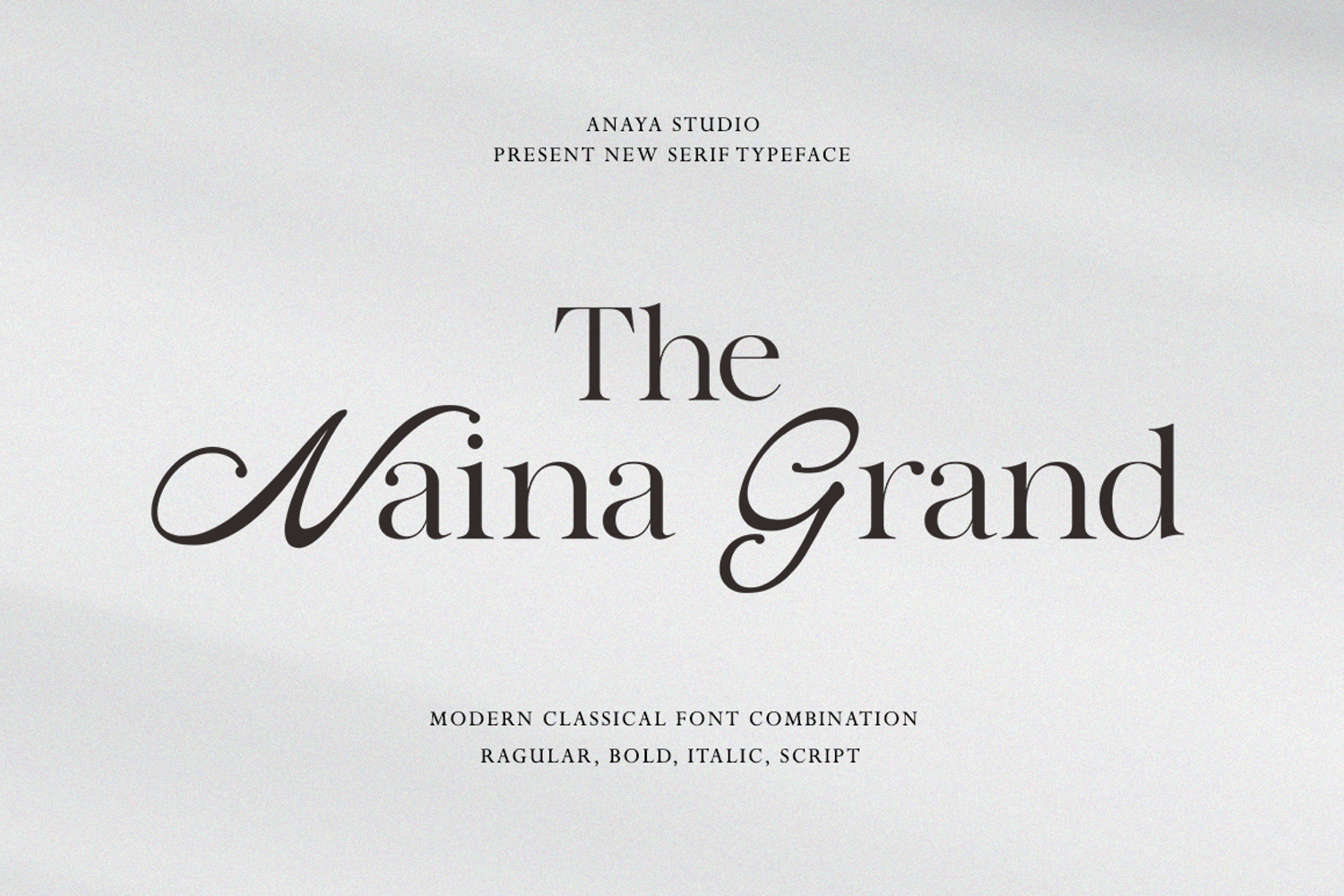
The Naina Serif style
the Naina is a modern monospace sans serif typeface built for clarity, precision, and contemporary digital aesthetics. Designed with a clean geometric structure and balanced proportions, Brixela delivers a sharp, technical, and highly functional look that feels both professional and modern. Its consistent letter width ensures perfect alignment, making it ideal for layouts that demand structure, rhythm, and visual harmony.